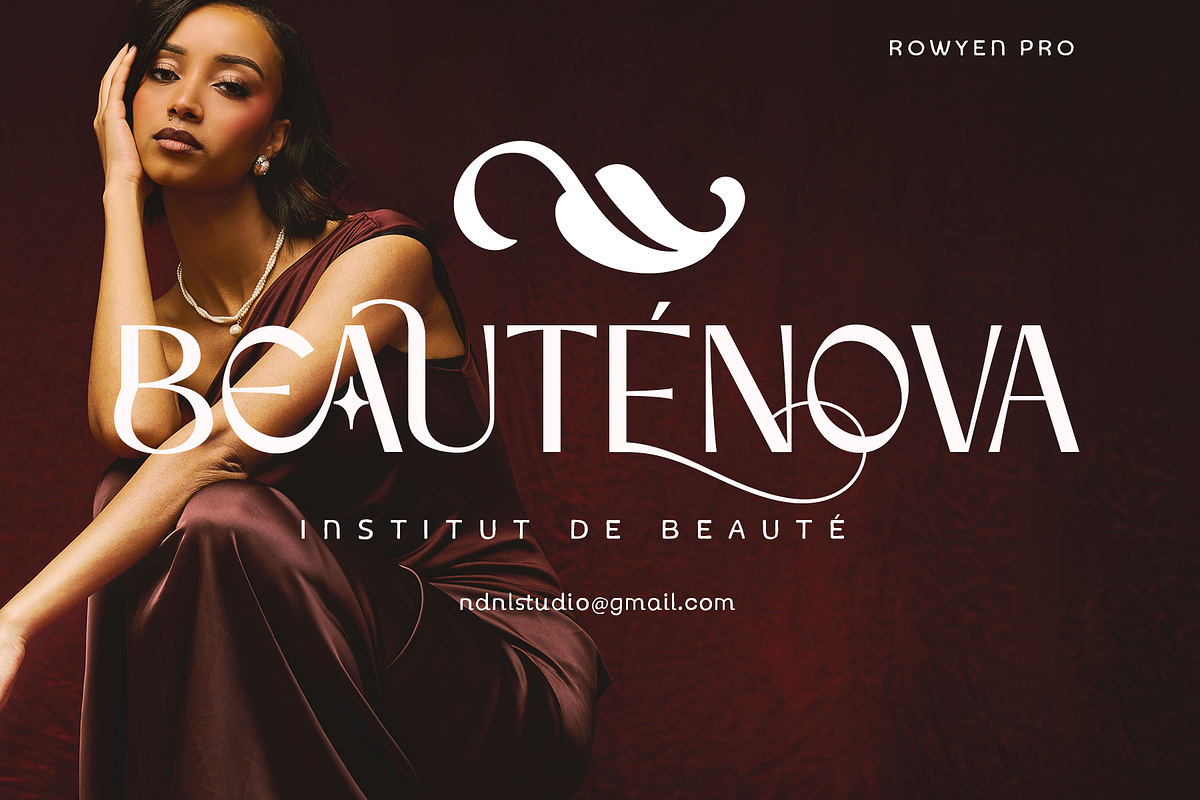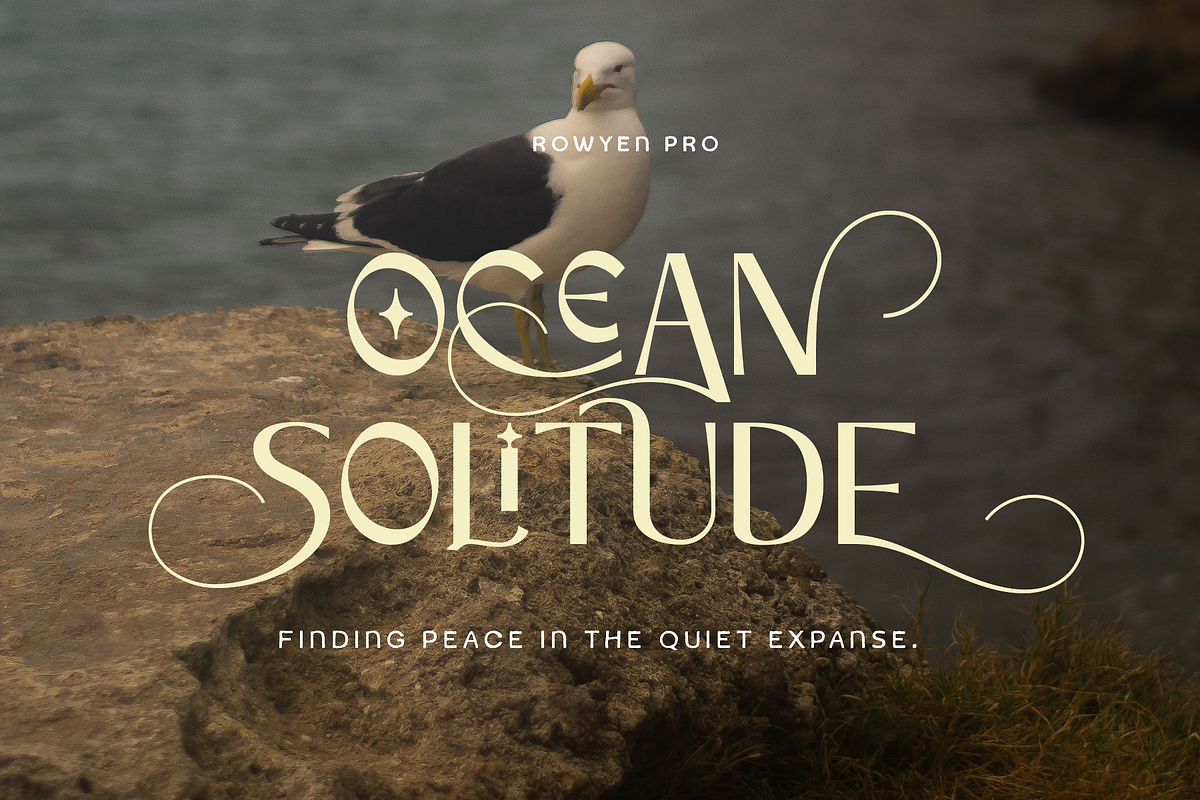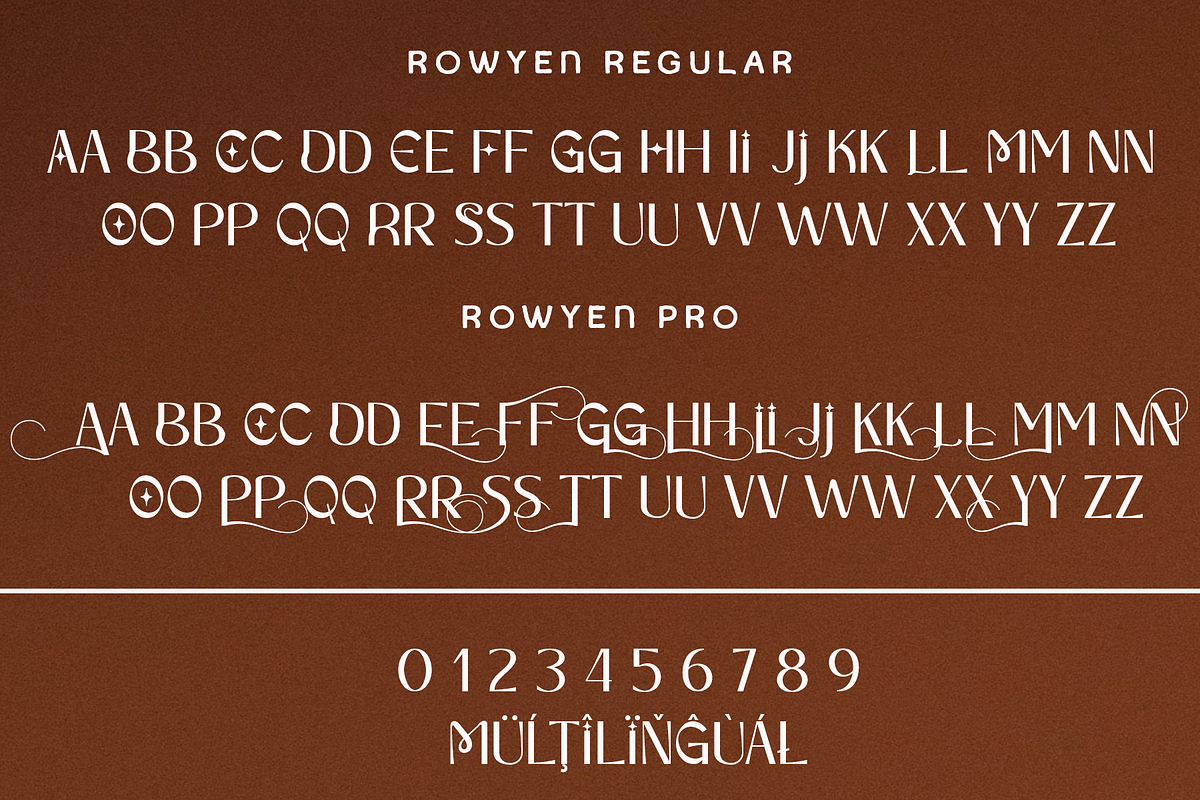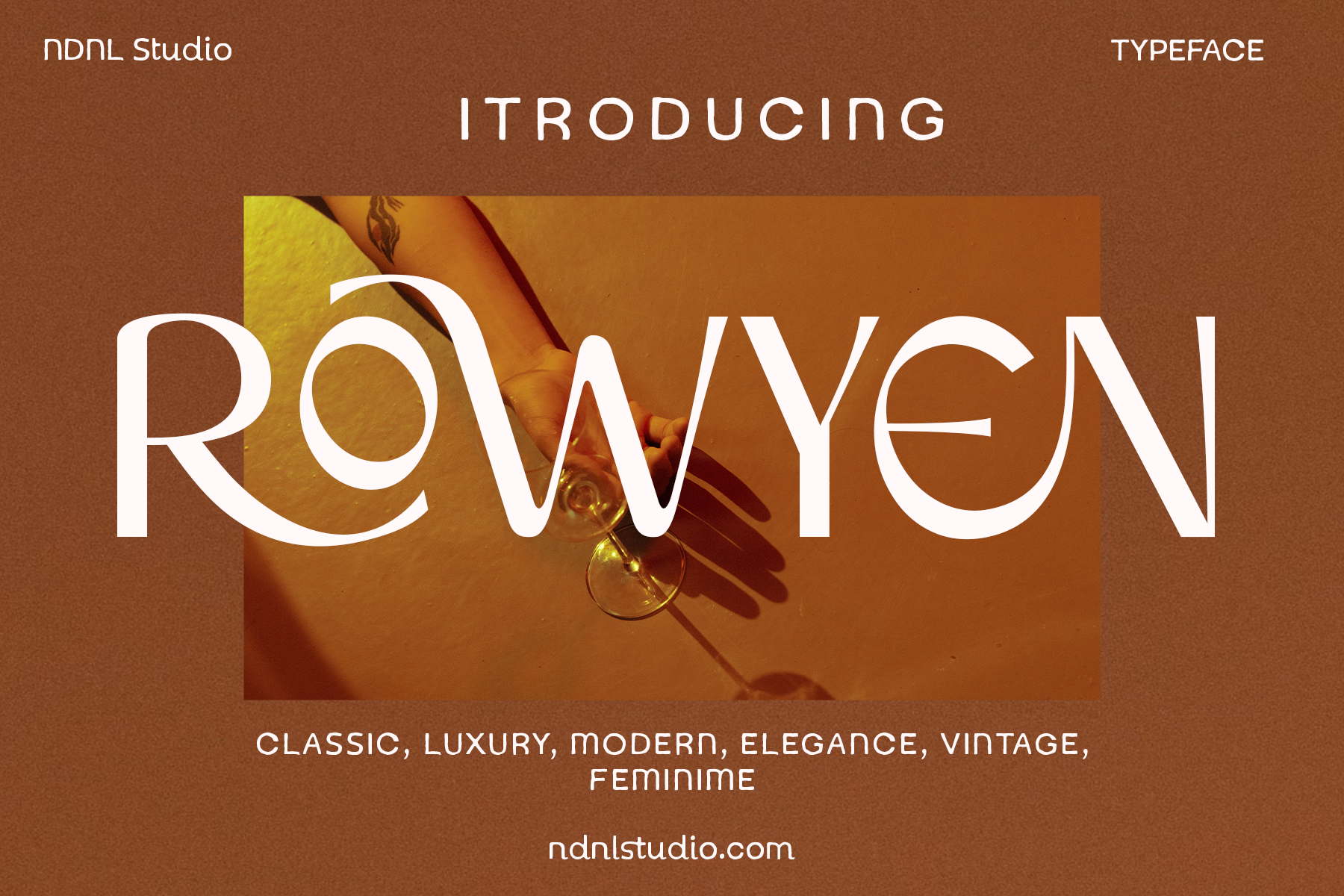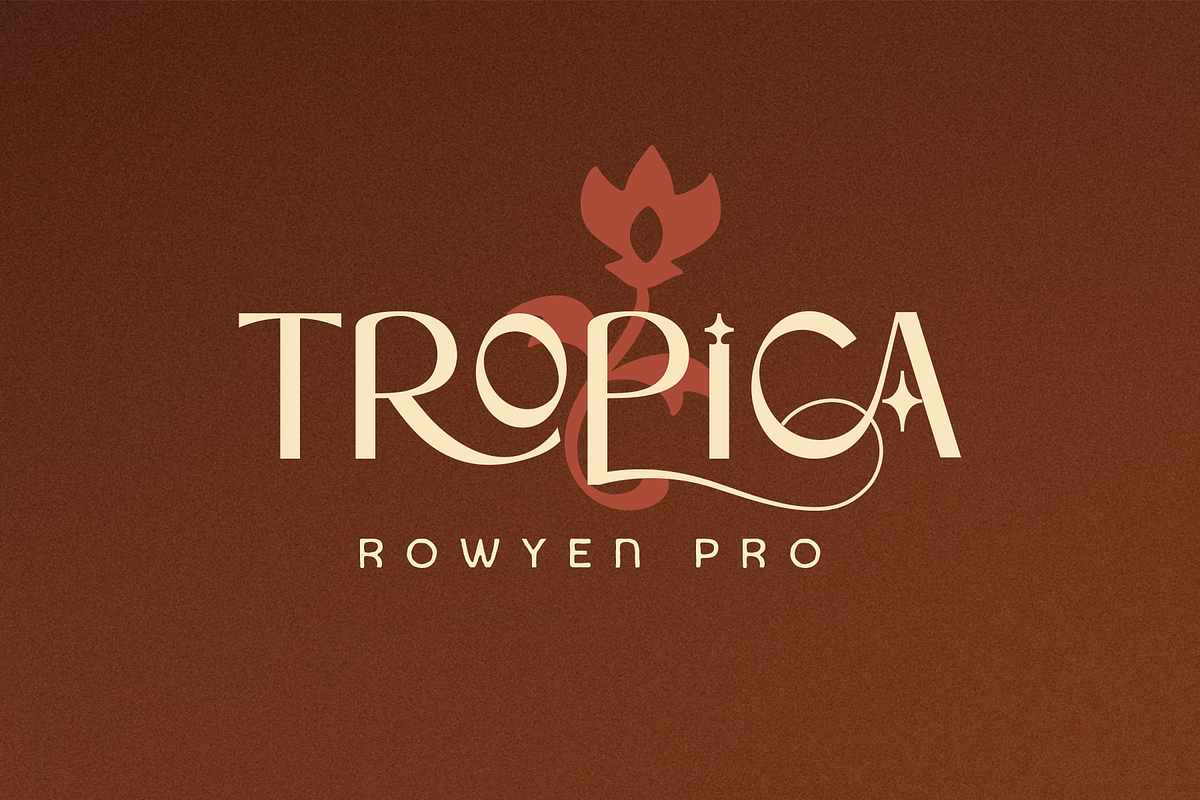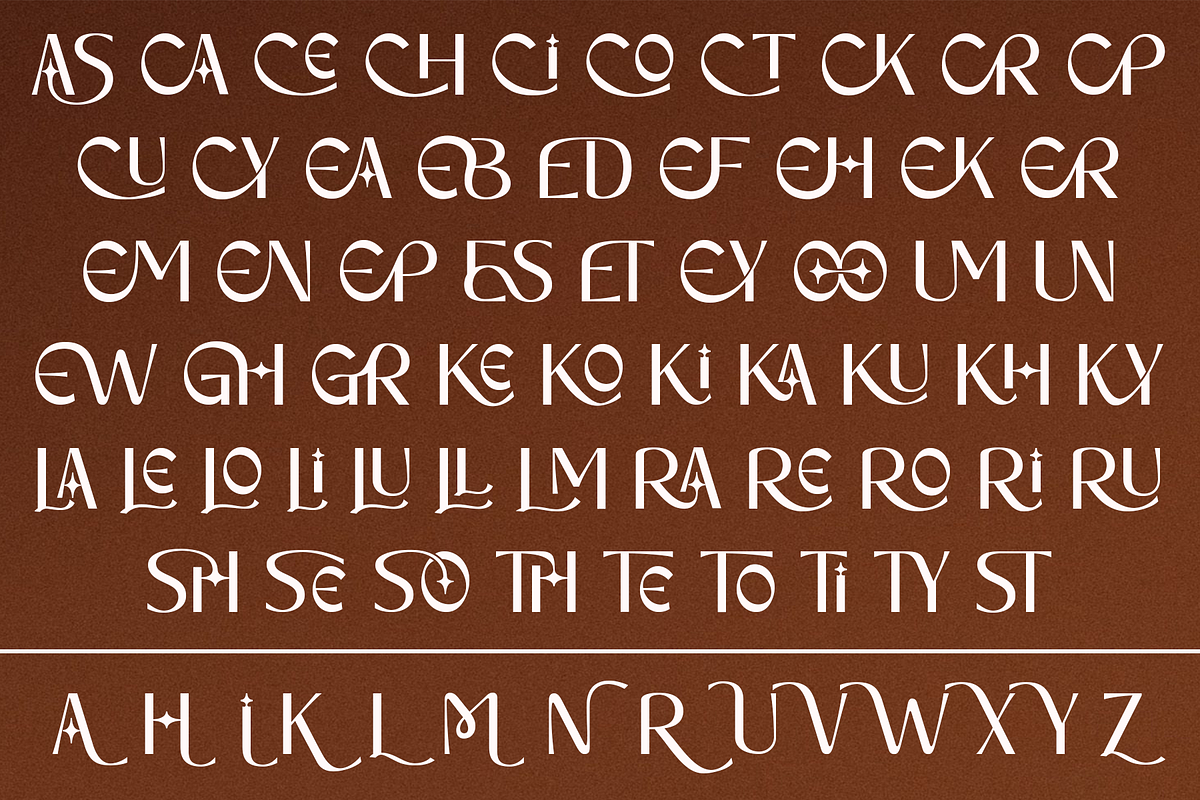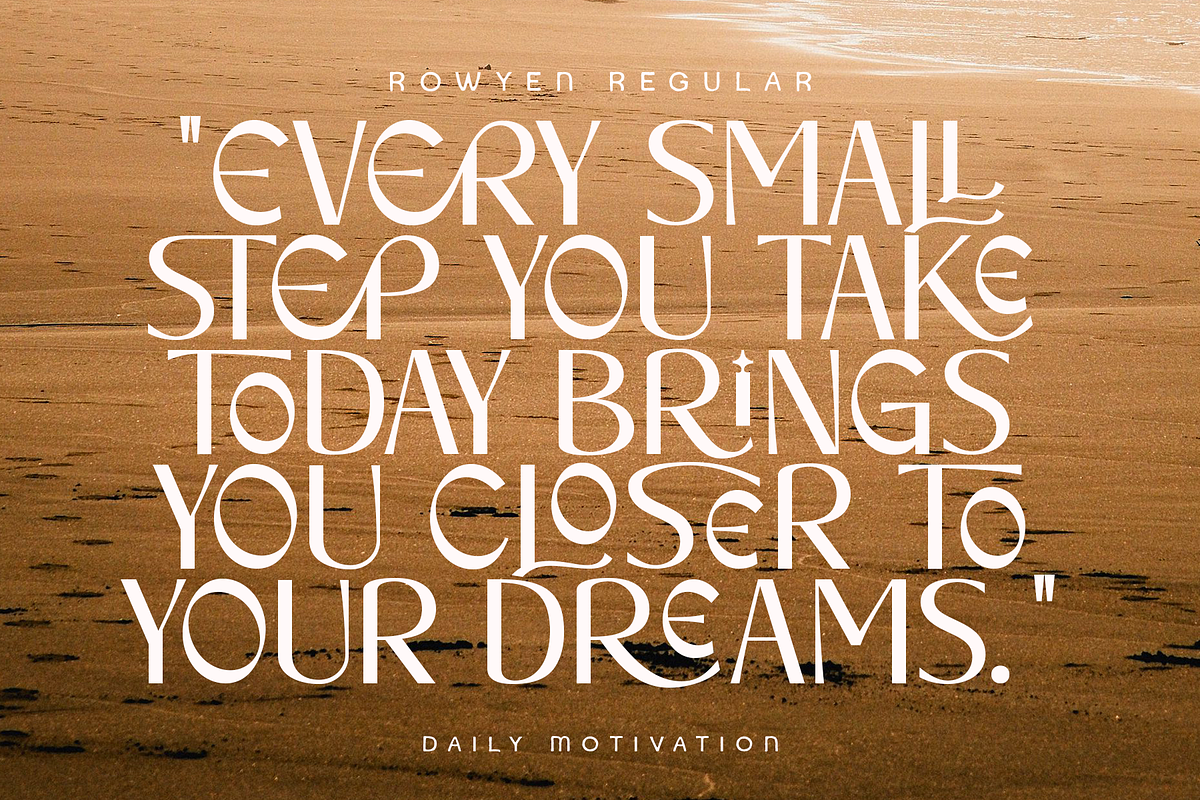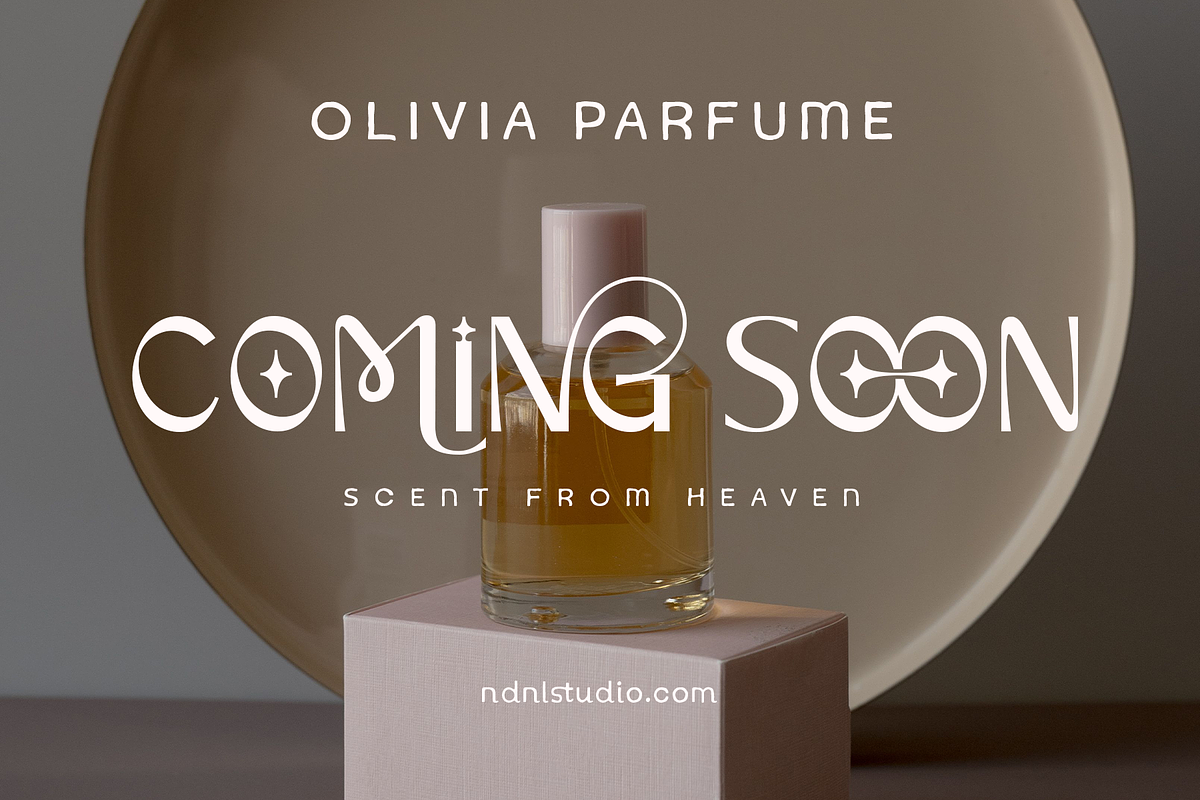
Rowyen – Sans Serif Font
Rowyen is a modern display typeface that blends classic elegance with a refined contemporary character. Its graceful curves, distinctive letterforms, and balanced proportions create a sophisticated yet expressive look.
With its luxurious and feminine aesthetic, Rowyen is designed to make a statement in fashion branding, beauty projects, editorial layouts, invitations, packaging, social media graphics, and stylish advertising designs.
– Ligatures